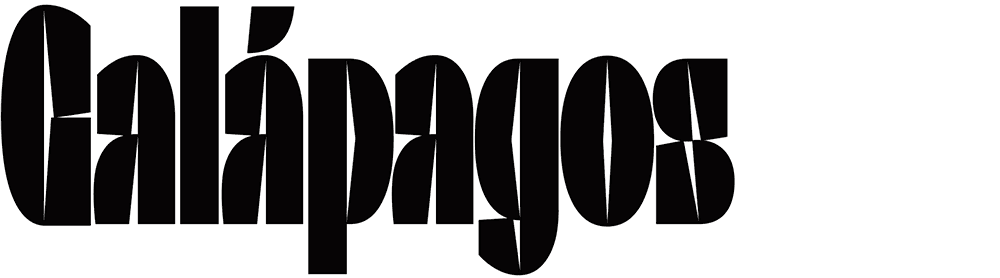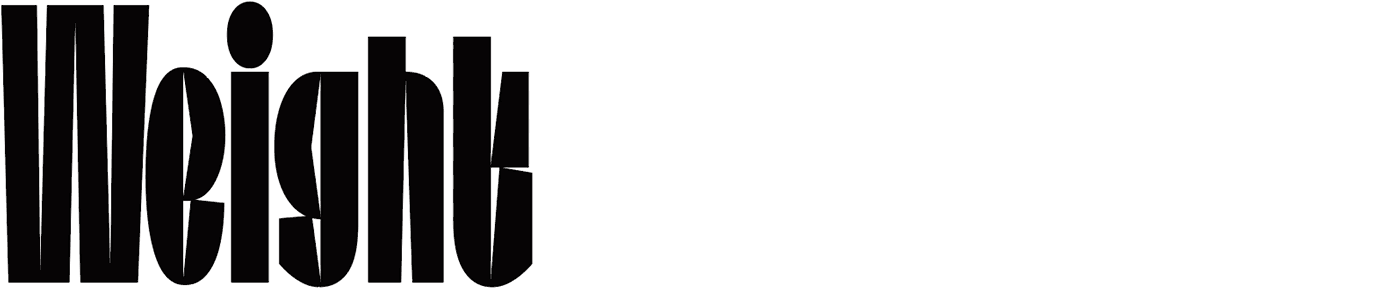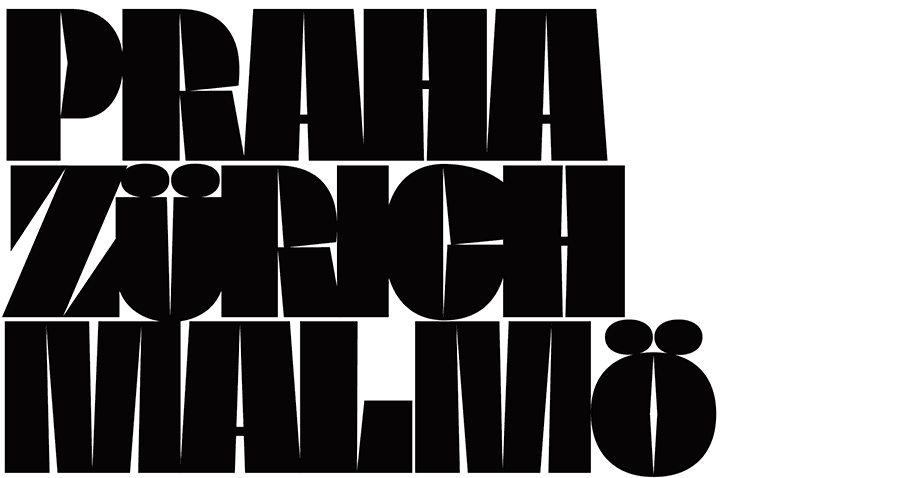
BC Baseliner
Variable font is a tool that offers the ability for relatively radical mutations of a typeface’s skeleton. The typeface Baseliner with regards to examine in practice whether the proclaimed variability is, in reality, a mere advertising trap. But above all we were interested in whether we could imprint an easily recognisable character and “content” in practice; more precisely, not to end up designing an elegant set of unsubstantial shapes, which would have an effect of changing, but for nothing.
Diacritical marks have bothered us Europeans for centuries. The development of the typographic and polygraphic industries has helped to shape the ideal proportion of accents in all countries. The Czechs began to take up the shapes of their marks only at the beginning of the 20th century due to a lack of quality accents for typesetting beautiful books. Vojtěch Preissig (1873–1944) and Karel Dyrynk (1876–1949) were among the first to work on the problem at the beginning of the 20th century; they drew Czech and Slovak marks on existing foreign typefaces. Their alternative accent shapes were a significant addition and often (intentionally) did not correspond to the morphology of the base letters. After the first of Preissig and Dyrynk’s attempts, they settled on the opinion that accents should be a formally pronounced partner to the basic character, but should not protrude either formally or proportionally.
Despite all the efforts, to this day we haven’t been able to get rid of the non-harmonic protrusions in the compressed lines of text. It will be hard to reform the orthographic form of our language, which makes great use of diacritical marks. Luckily, after more than 100 years from the first attempts by Czech type designers, we have come up with a solution.
Baseliner is a variable font. It allows typesetting with very tight linespacing, because the diacritics can be completely embedded (figuratively speaking, to be either dug into or sunken) into the body of the character. Incorporating the diacritics also leads to atypical solutions to the construction of the characters themselves. But the compactness of the typesetting is not only achieved by embedding the accents themselves – the variable shortening of the lower baseline (the “g,” “q,” and “p,” for example) create a compact letter block from the set text.
Baseliner’s second axis offers a spectrum of variations in width proportions – from condensed to highly extended options. Because of this, Baseliner perfectly fills graphic spaces in all directions, horizontally and vertically.
The construction of the typeface is robust. Its high contrast and geometric composition of strokes with pronounced horizontal shadowing enables the typeface to be used especially in display and title sizes.
Baseliner is offered in four extreme weights in the standard OpenType format, and especially in the advanced variable type format, enabling its maximum use from a spectrum of weights and shapes. A new weapon in the fight against non-compact lines is out in the world.